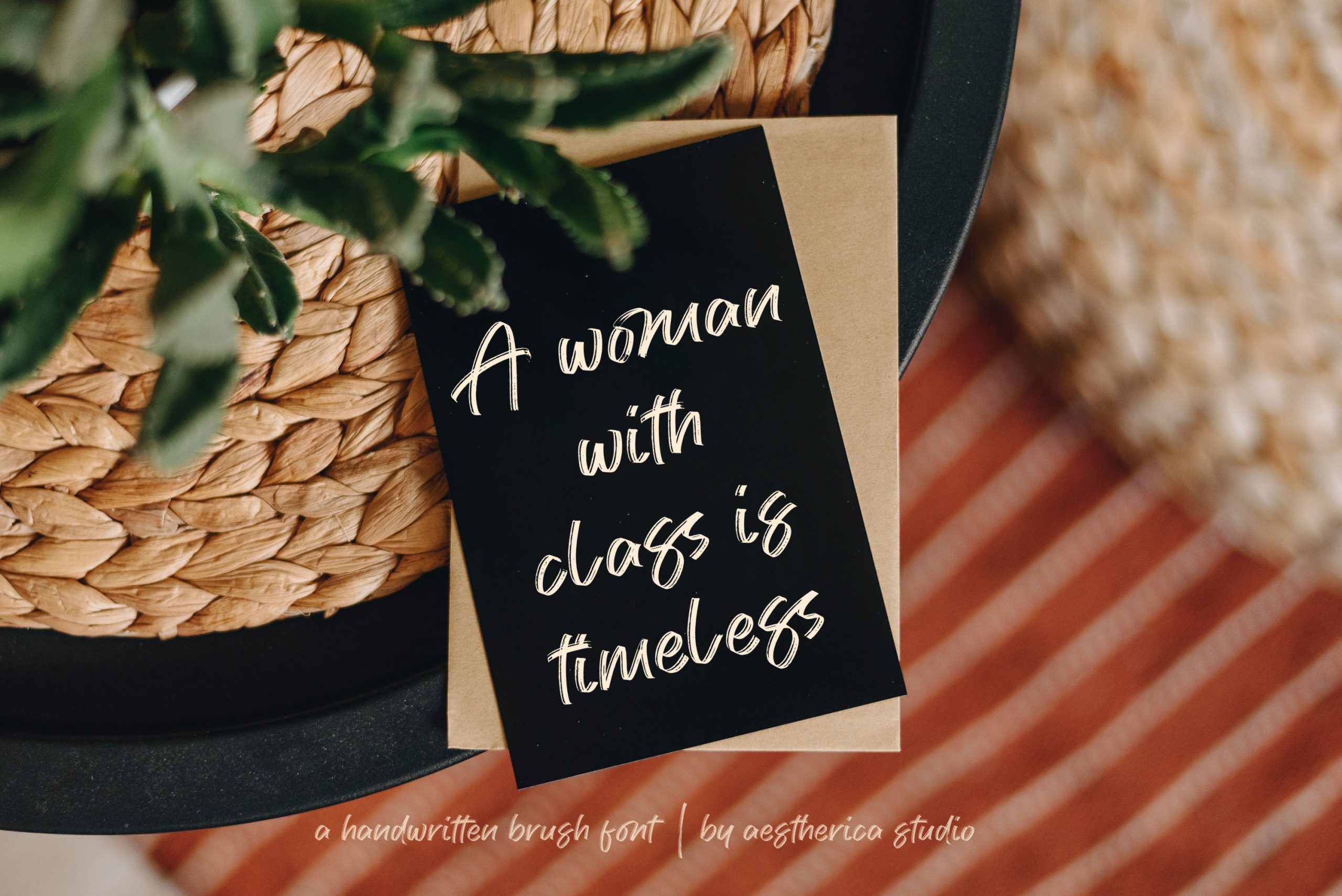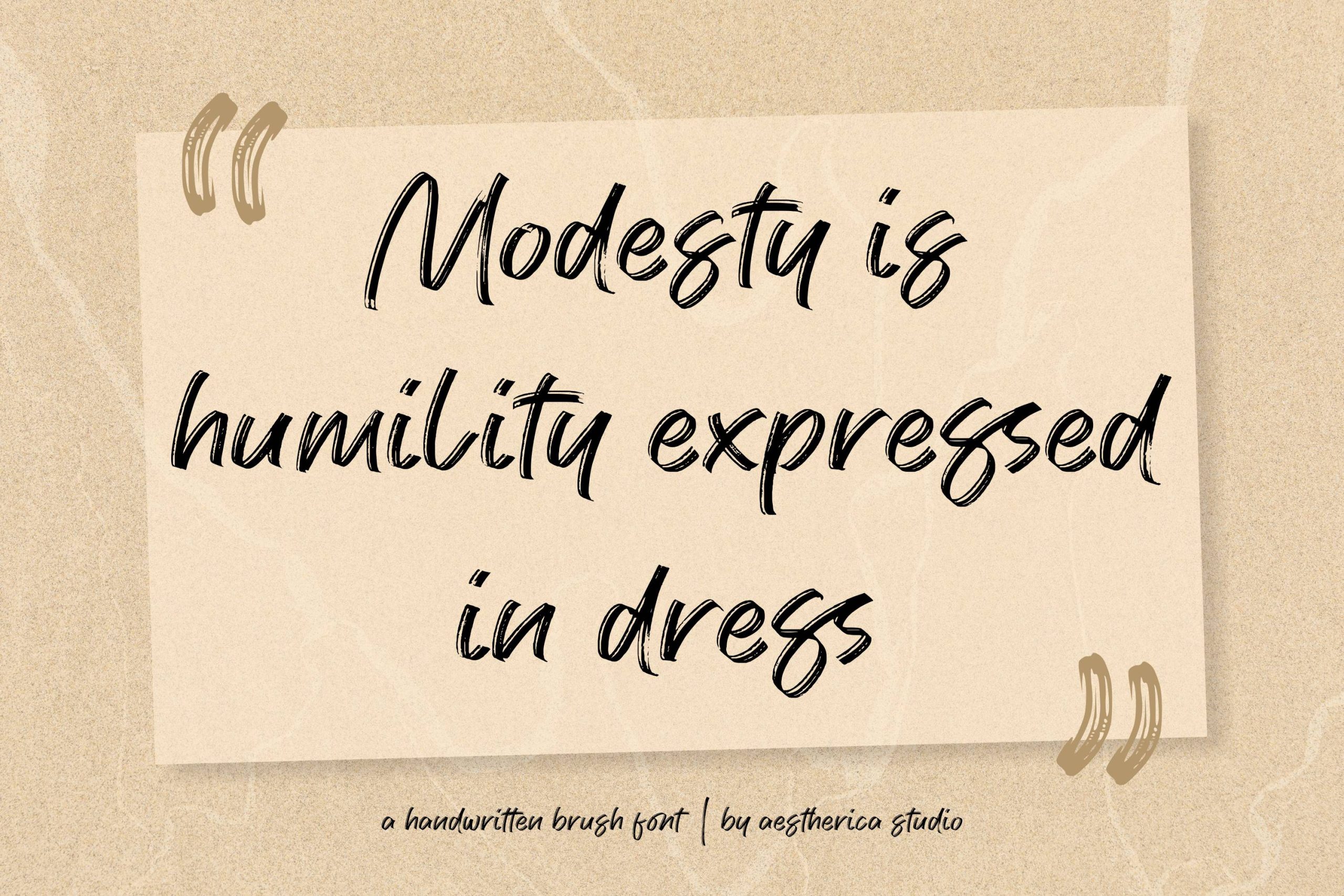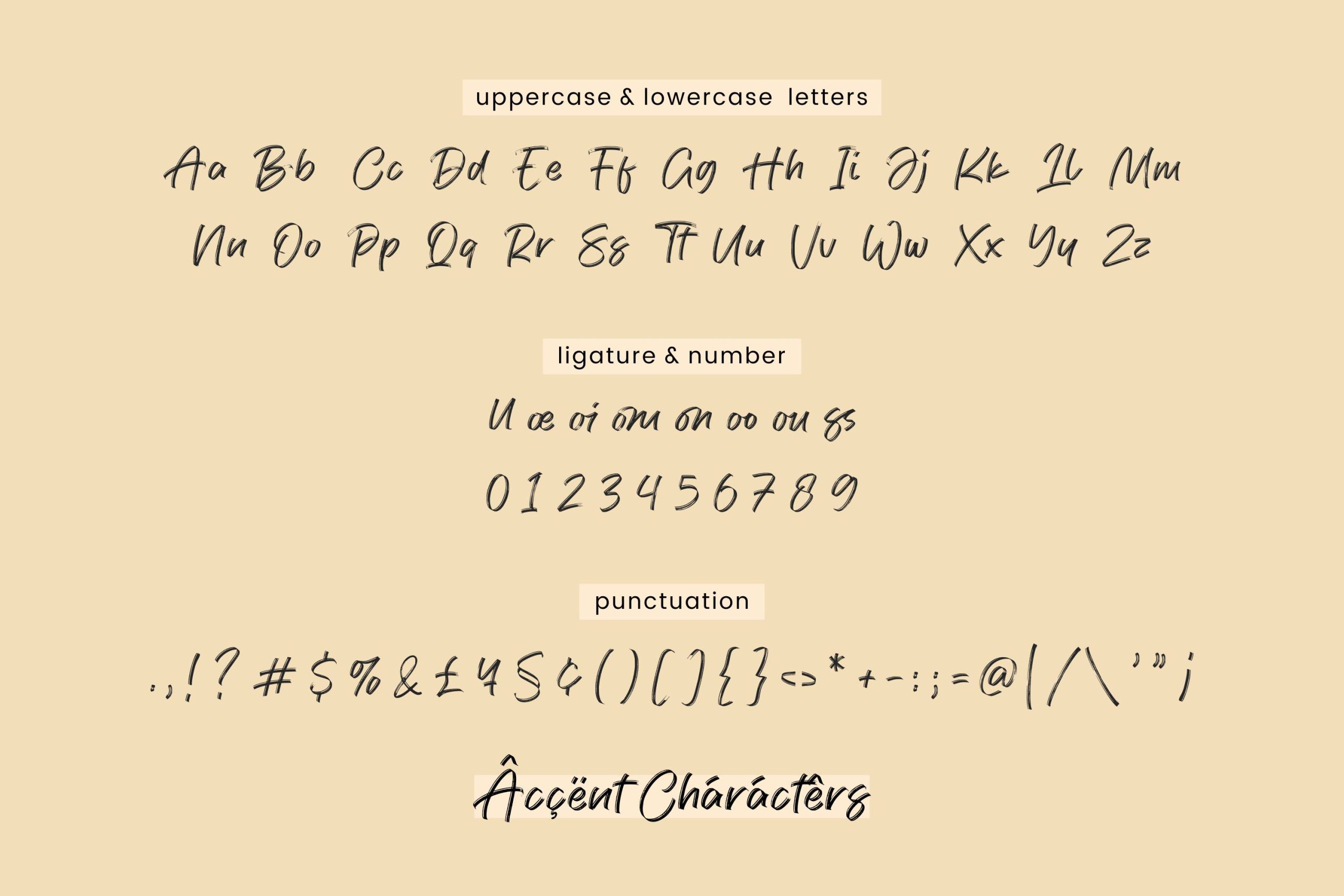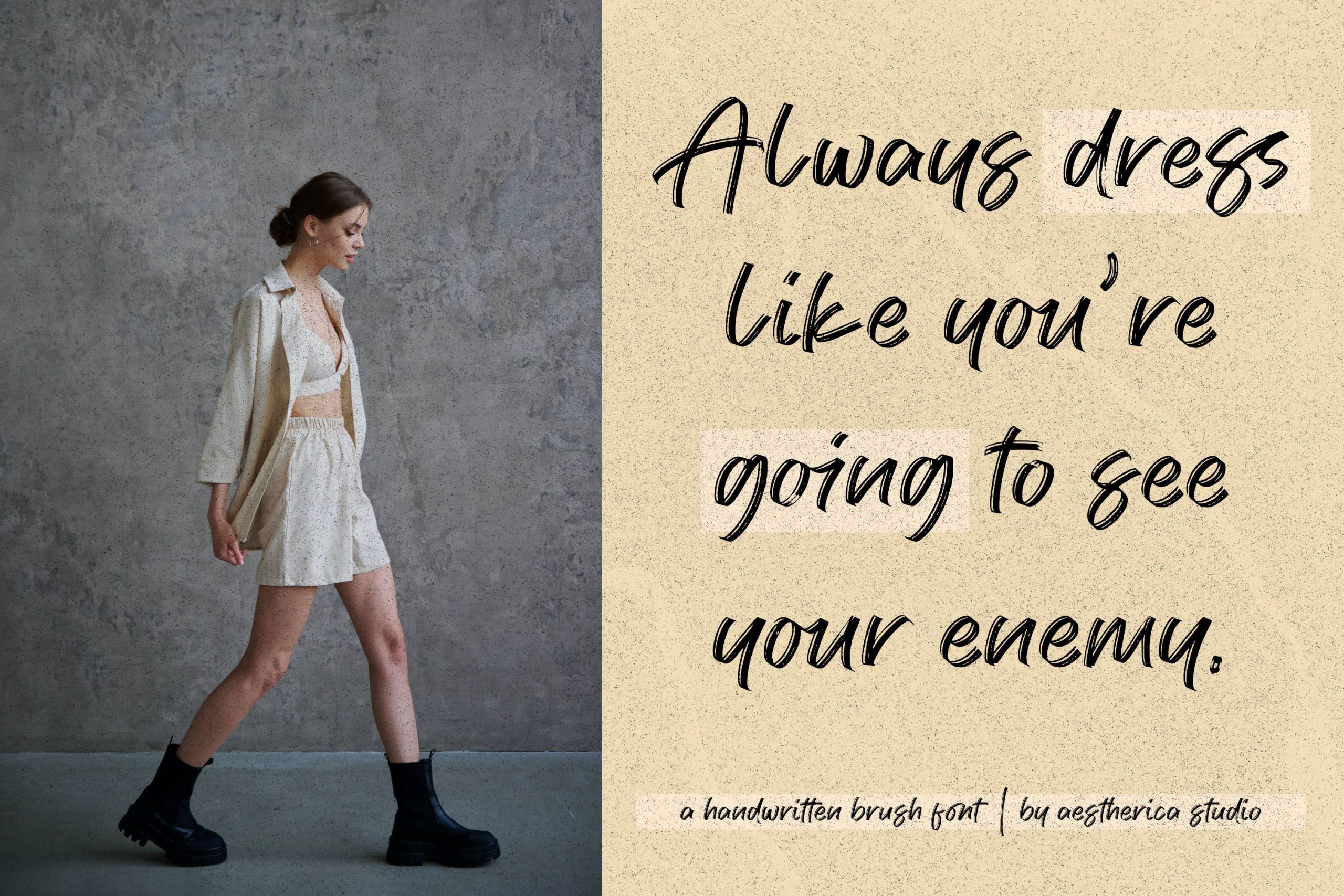
Modesty Brush Font
It’s a script font with a handwritten dry brush style and high-concept art. This font is a great way to make a statement in your apparel, branding, marketing, and web design, among many other uses.